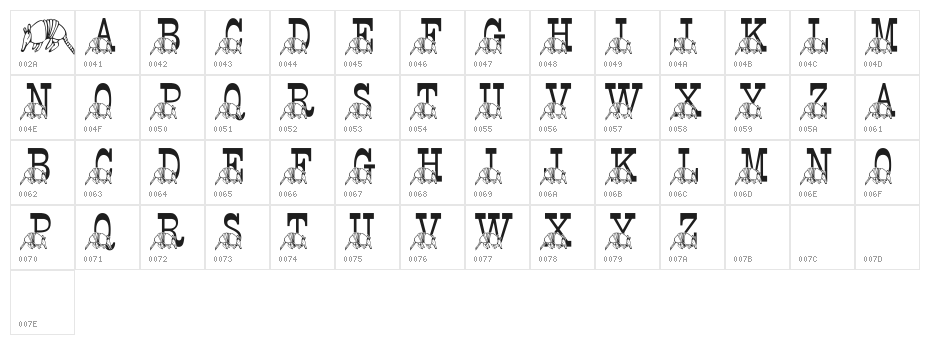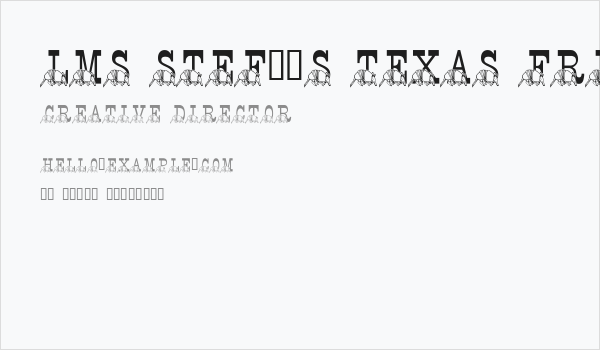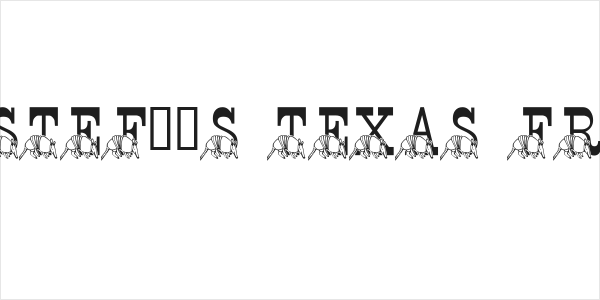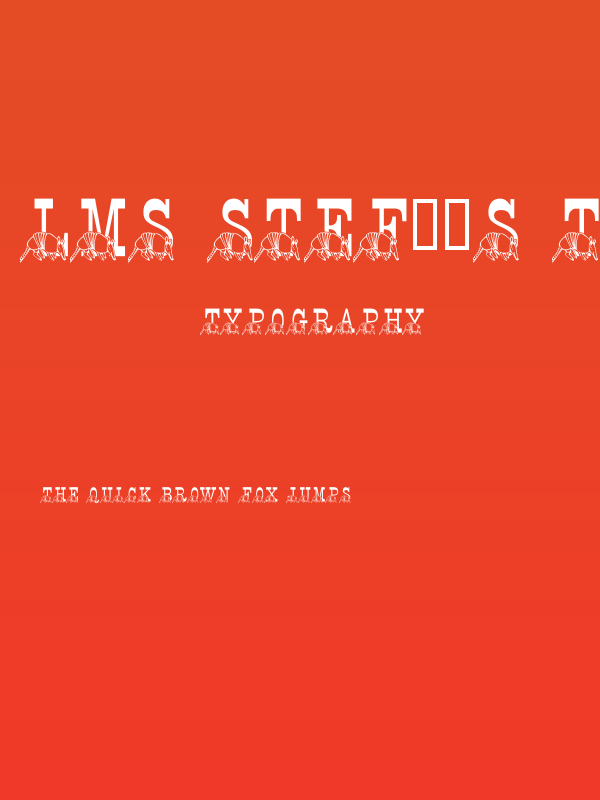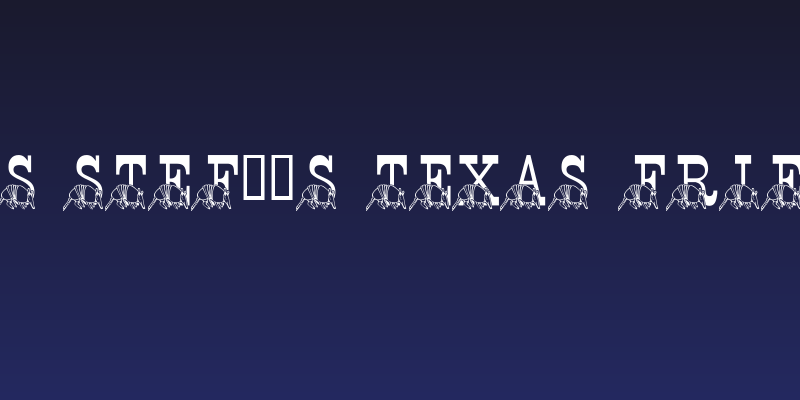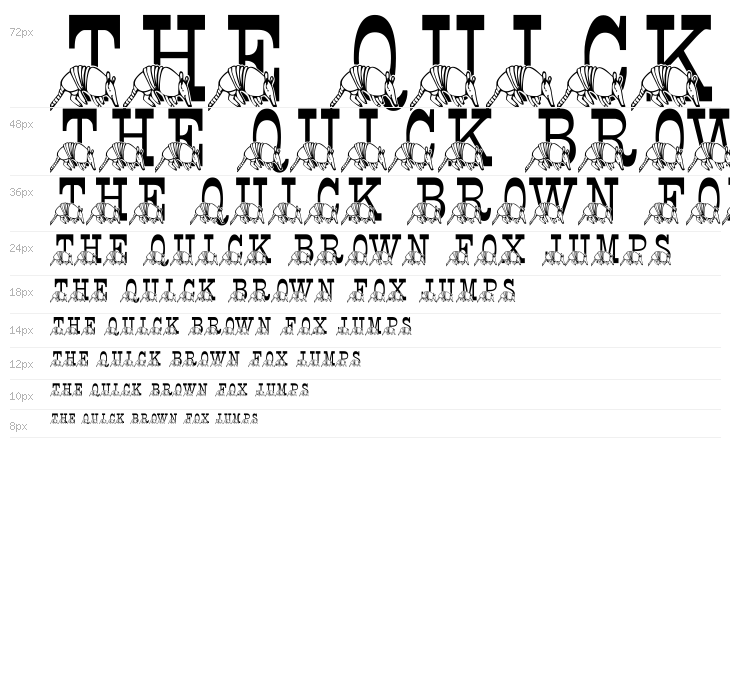
LMS Stef's Texas Friend Font
LMS Stef's Texas Friend Description
This unique font combines bold, uppercase letters with a playful armadillo motif integrated into each character. The letters are strong and prominent, featuring a decorative style that adds a whimsical touch. The armadillo design is consistent across all characters, creating a cohesive and thematic appearance. The font is ideal for projects that require a fun and distinctive look, such as children's books, themed event invitations, or branding for businesses with a playful identity. Its bold nature ensures readability while the decorative elements provide visual interest.
| Use Case | Headlines, Logos, Decorative text |
| Proposed Projects | Children's books, themed event invitations, playful branding, decorative posters. |